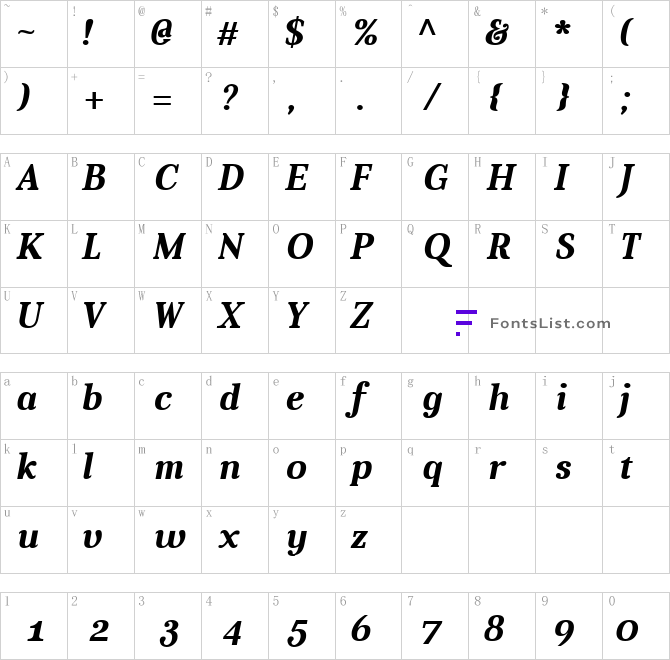
- Font Name:Aver
Aver-Bold-Italic-copy-1-.ttf is a very beautiful artistic font, Aver-Bold-Italic-copy-1-.ttf is widely used in the design and printing of various books and pictures,Aver-Bold-Italic-copy-1-.ttf has a strong visual impact,Aver-Bold-Italic-copy-1-.ttf is a commonly used font in newspapers, magazines and books, and is used in posters, e-commerce Poster design, store design, logo design, font design and other fields.Aver-Bold-Italic-copy-1-.